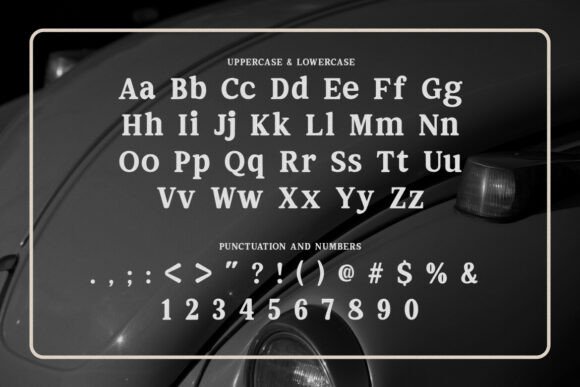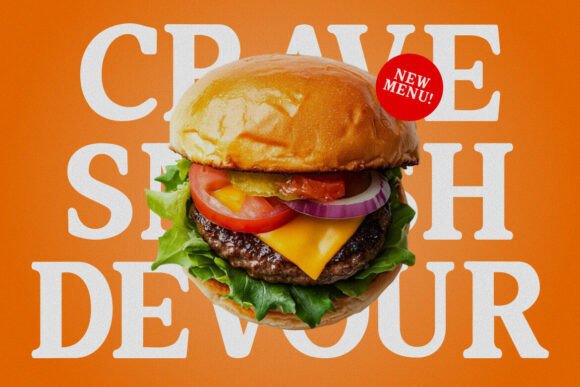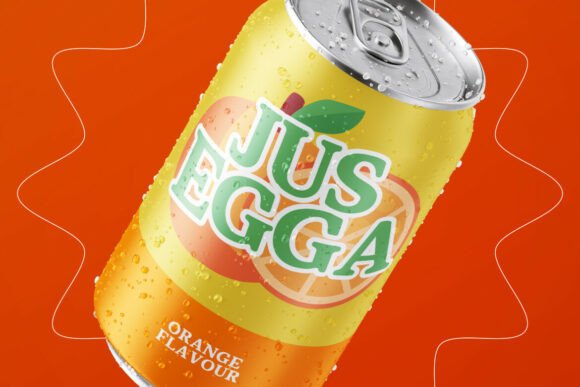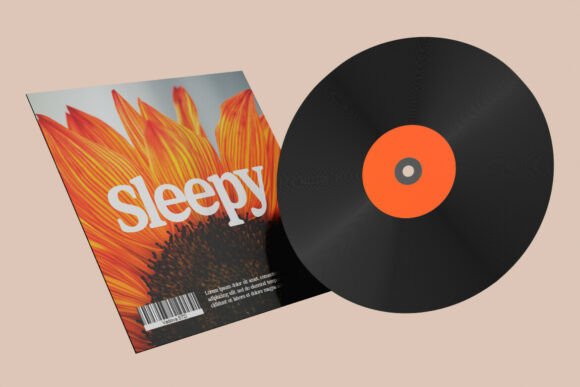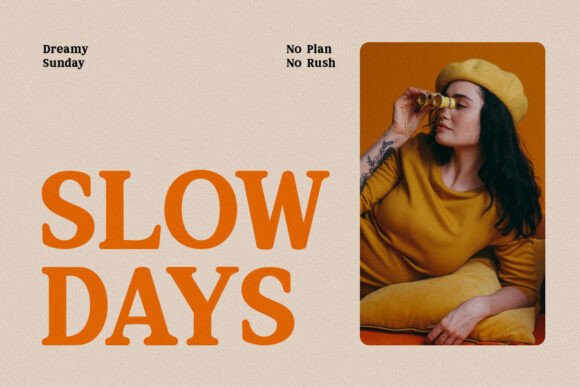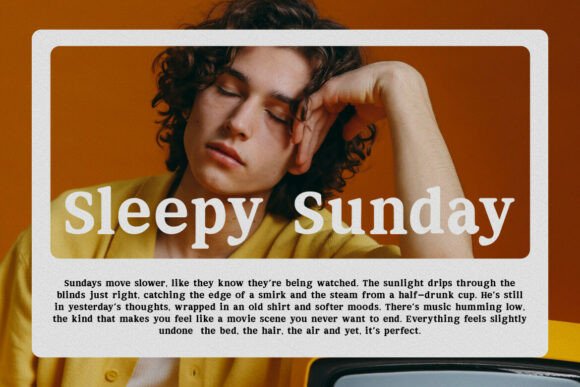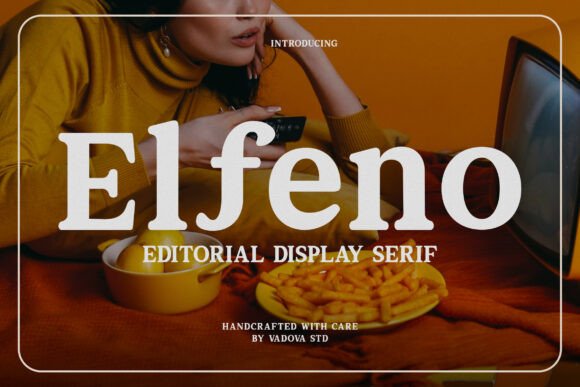
Introducing Elfeno: The Elegant Serif Font that Transcends Time
In the world of typography, few fonts manage to strike a balance between classic charm and modern sophistication. However, Elfeno Font is an exception. This retro elegant serif font has been designed to blend the best of both worlds, making it an ideal choice for designers and crafters looking to add a touch of timeless appeal to their projects.
The Characteristics of Elfeno Font
Elfeno Font boasts sharp serifs, balanced proportions, and stylish details that set it apart from other serif fonts. Its classic design is reminiscent of traditional printing, while its modern twist ensures it remains visually relevant in today’s design landscape. The font’s elegant appearance makes it perfect for a variety of applications, including editorial layouts, logo design, vintage posters, and premium branding.
Editorial Layouts and Magazine Design
When it comes to creating editorial layouts and magazine designs, the choice of font is crucial. Elfeno Font’s clear and readable design makes it an excellent choice for body text, while its elegant appearance ensures that headlines and titles stand out. The font’s sharp serifs and balanced proportions also help to create a sense of hierarchy, making it easy to guide the reader’s eye through the content.
Logo Design and Branding
In the world of logo design and branding, a font can make or break a brand’s identity. Elfeno Font’s unique blend of classic and modern elements makes it an excellent choice for creating a distinctive brand voice. Its elegant appearance and stylish details ensure that logos and branding materials stand out, while its timeless appeal ensures that they remain relevant for years to come.
Vintage Posters and Print Media
For designers and crafters looking to create vintage-inspired posters and print media, Elfeno Font is an excellent choice. Its retro elegant design is reminiscent of classic printing, while its modern twist ensures that it remains visually appealing to modern audiences. The font’s sharp serifs and balanced proportions also help to create a sense of nostalgia, making it perfect for creating vintage-inspired designs.
Digital Media and Web Design
In today’s digital age, a font’s versatility is more important than ever. Elfeno Font is designed to perform well in both print and digital media, making it an excellent choice for web design and digital projects. Its clear and readable design ensures that it remains legible on a variety of devices, while its elegant appearance ensures that it stands out in a crowded digital landscape.
Why Choose Elfeno Font?
So why choose Elfeno Font over other serif fonts? Here are just a few reasons:
- Timeless appeal: Elfeno Font’s classic design ensures that it remains timeless, while its modern twist ensures that it remains visually relevant.
- Versatility: The font’s versatility makes it suitable for a wide range of applications, from editorial layouts and logo design to vintage posters and digital media.
- Elegant appearance: Elfeno Font’s elegant appearance makes it perfect for creating premium branding and high-end designs.
- Easy to read: The font’s clear and readable design ensures that it remains legible in a variety of contexts.
In conclusion, Elfeno Font is a retro elegant serif font that blends classic charm with modern sophistication. Its sharp serifs, balanced proportions, and stylish details make it perfect for a wide range of applications, from editorial layouts and logo design to vintage posters and premium branding. Whether you’re a designer or crafter looking to add a touch of timeless appeal to your projects, Elfeno Font is an excellent choice.